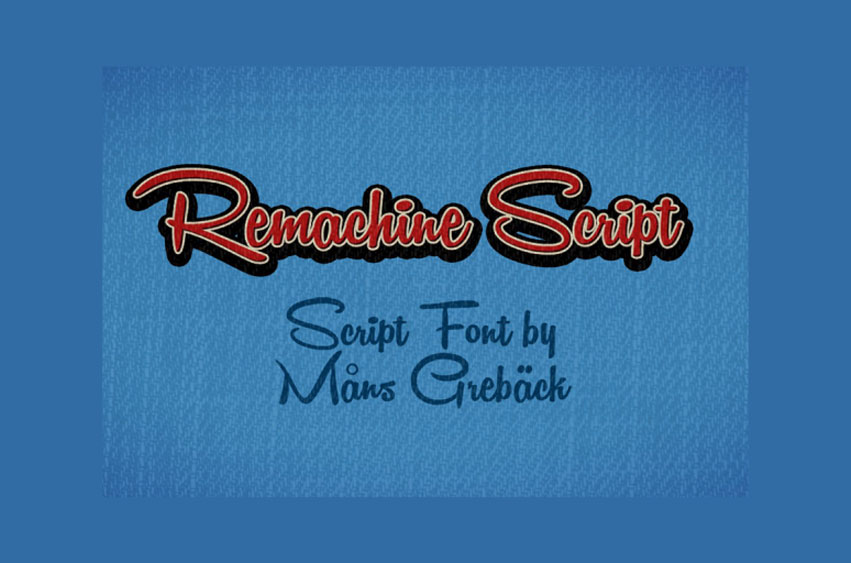
Remachine Script Font
Remachine Script Font High quality 1900’s script font in TTF and OTF.
It fits in headlines, logos, posters, flyers, invitations, name cards, branding materials, print media, editorial layouts, and many more.